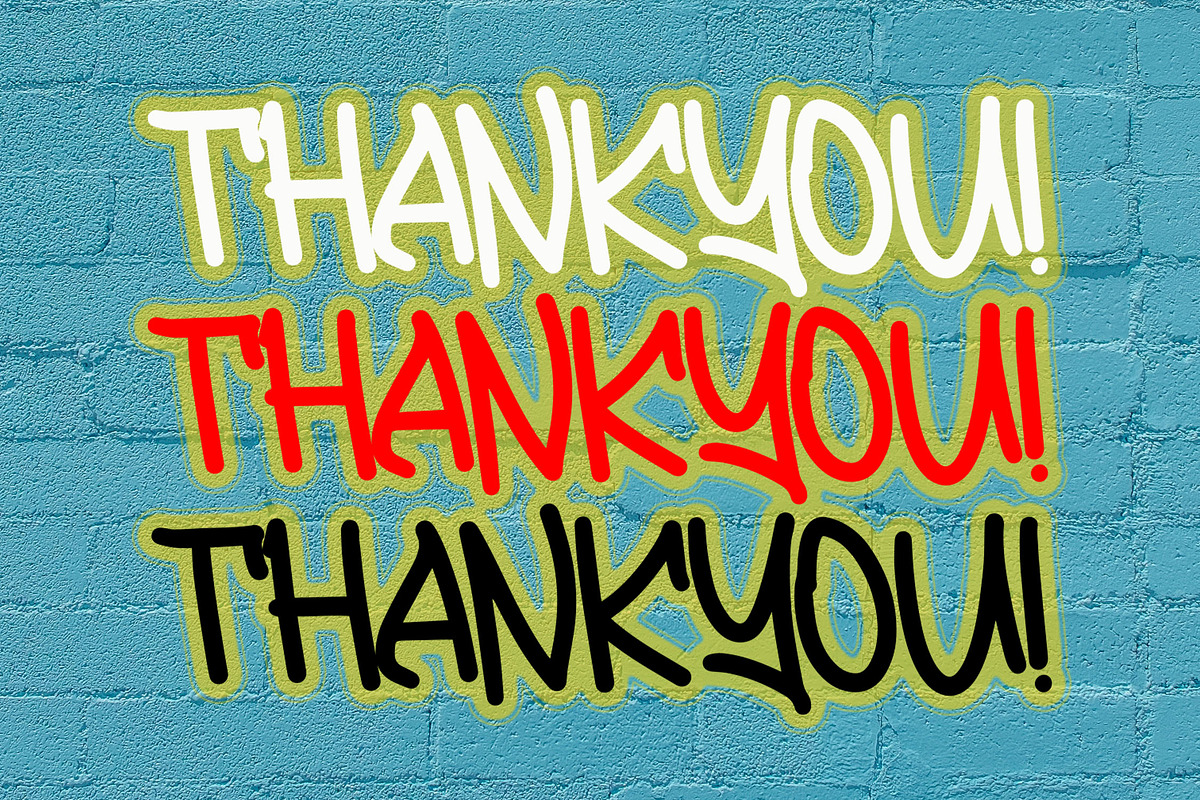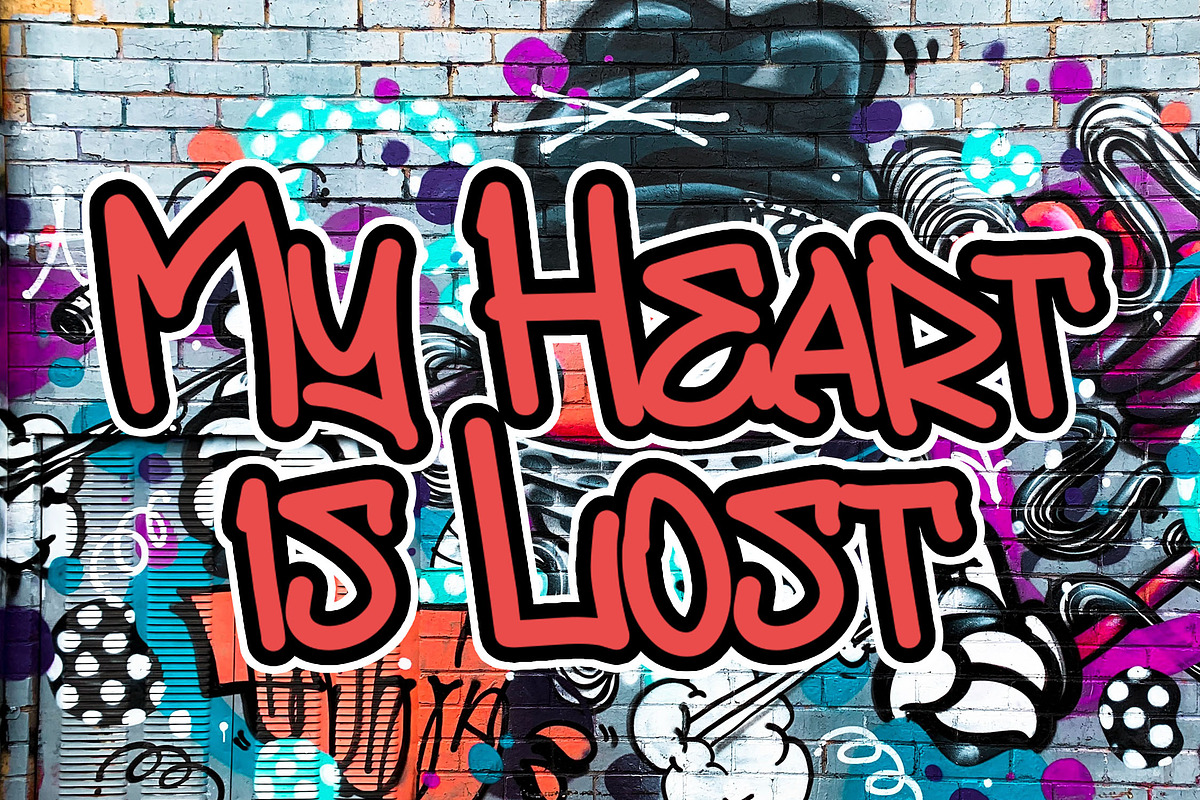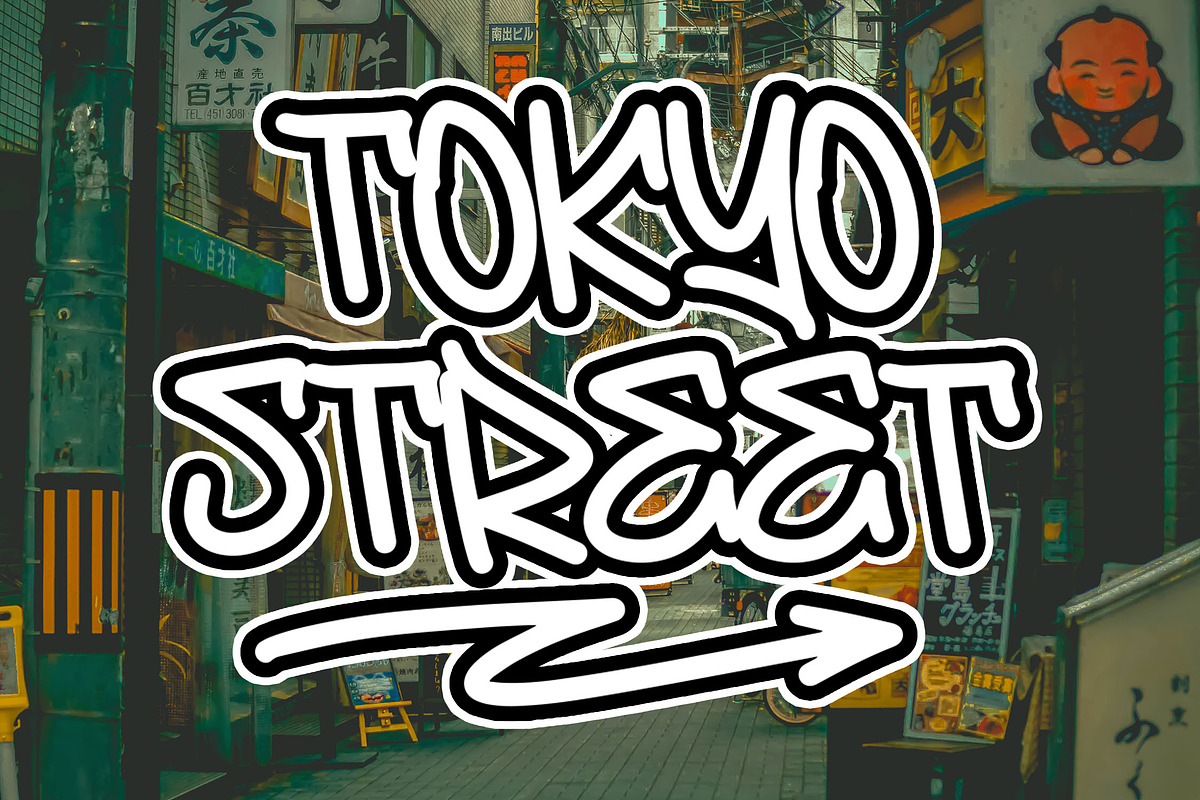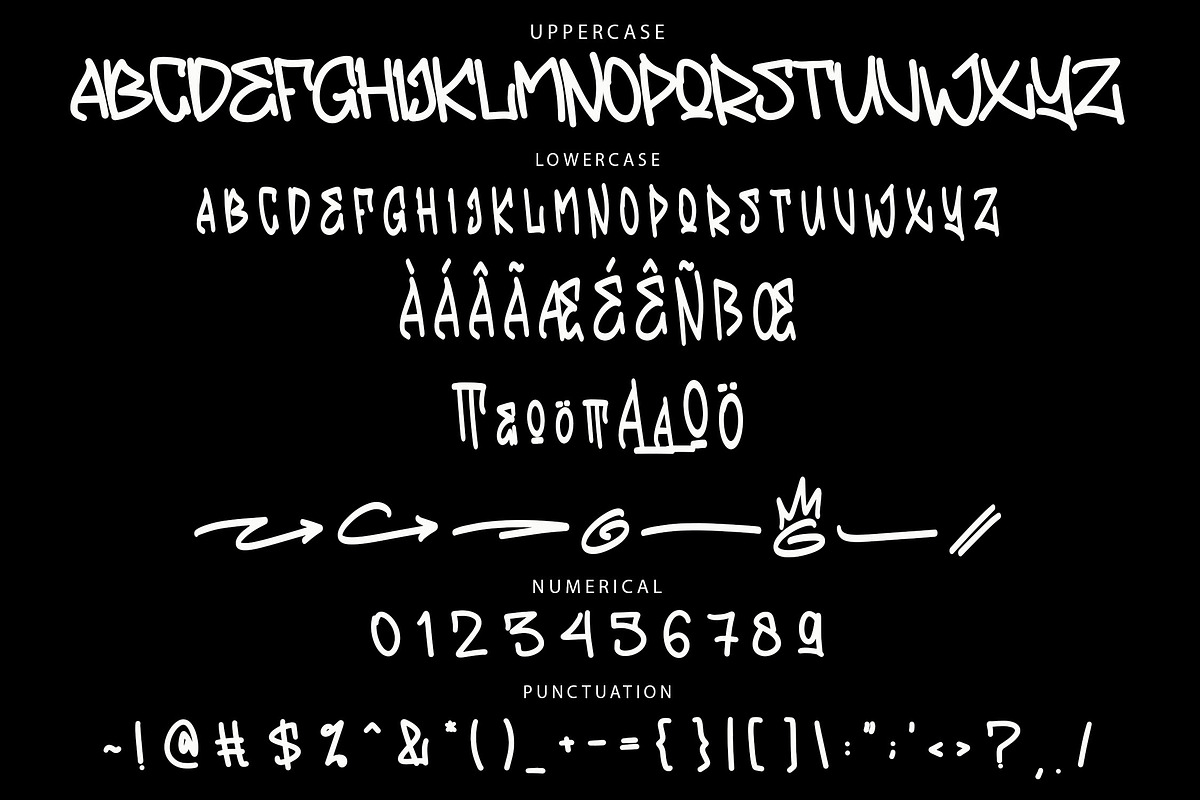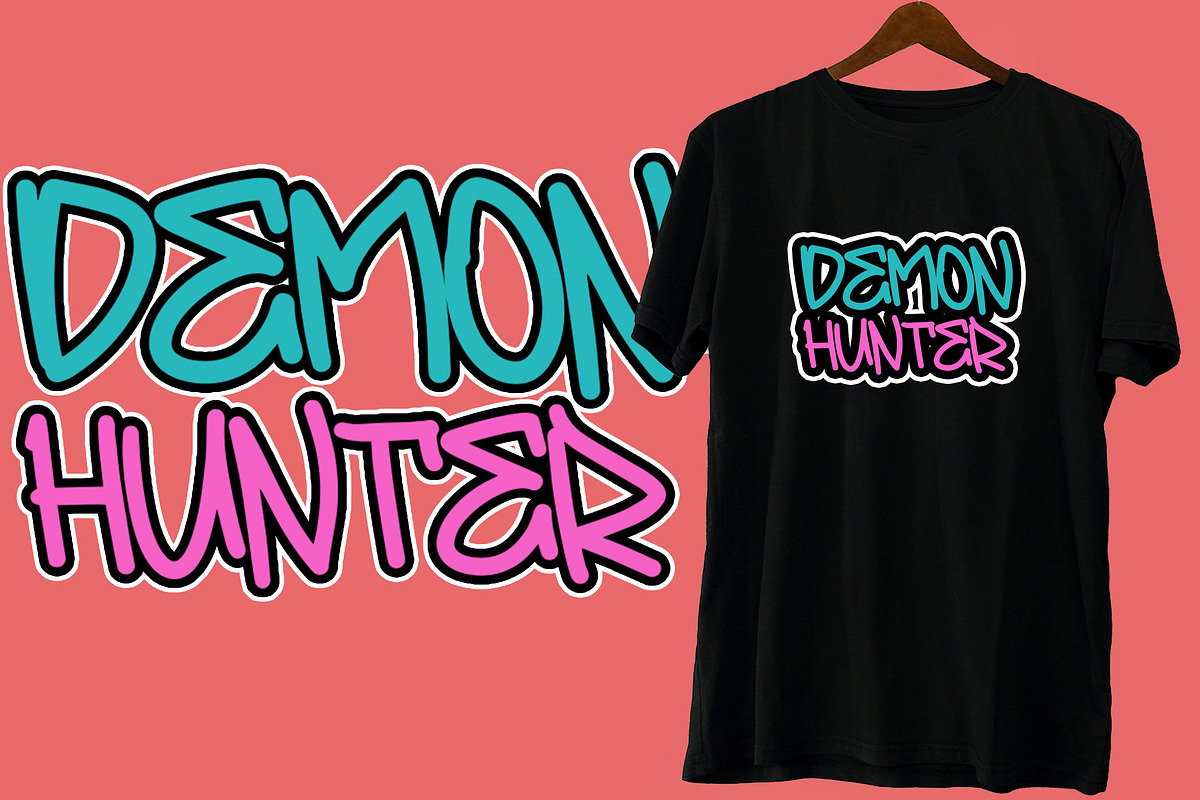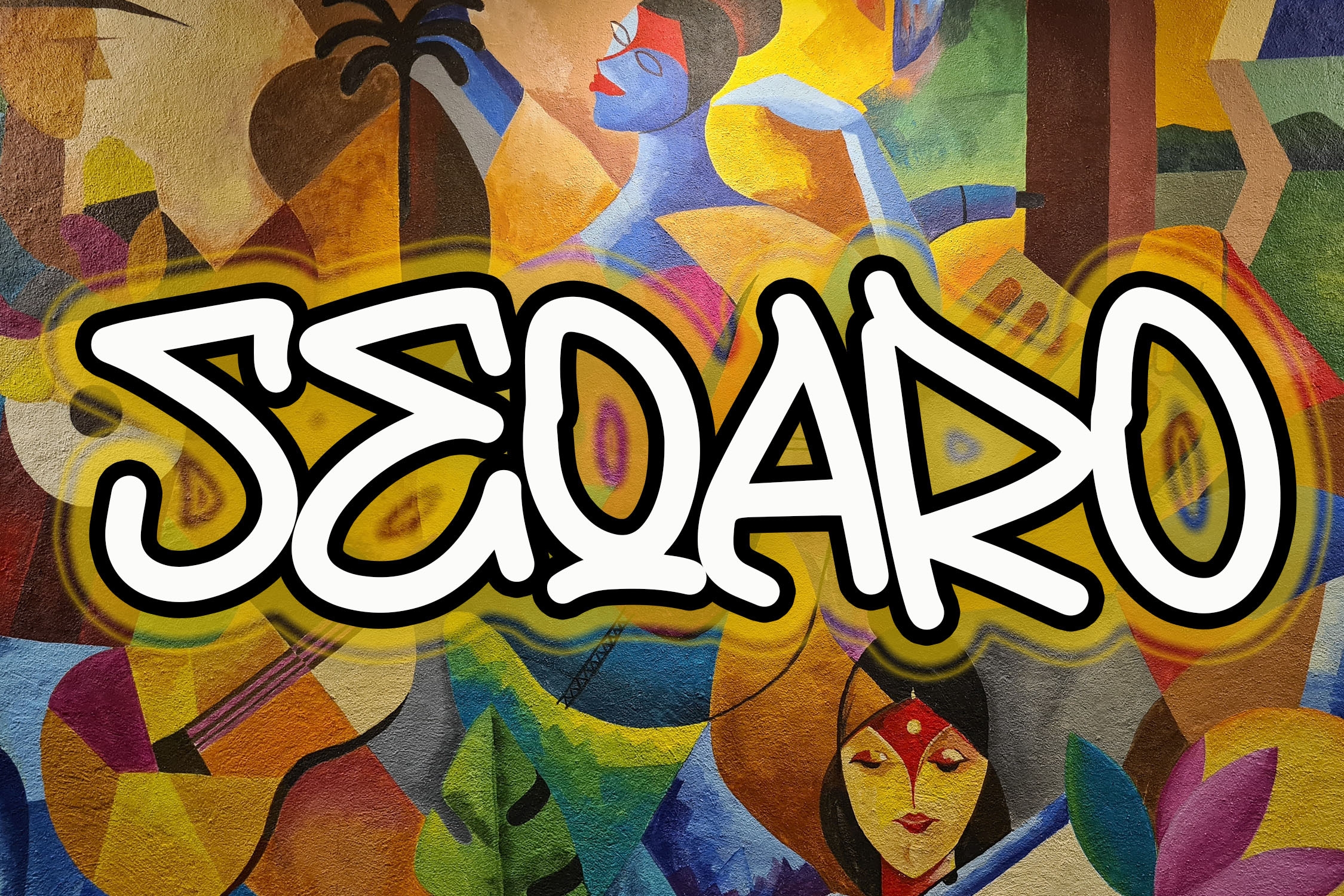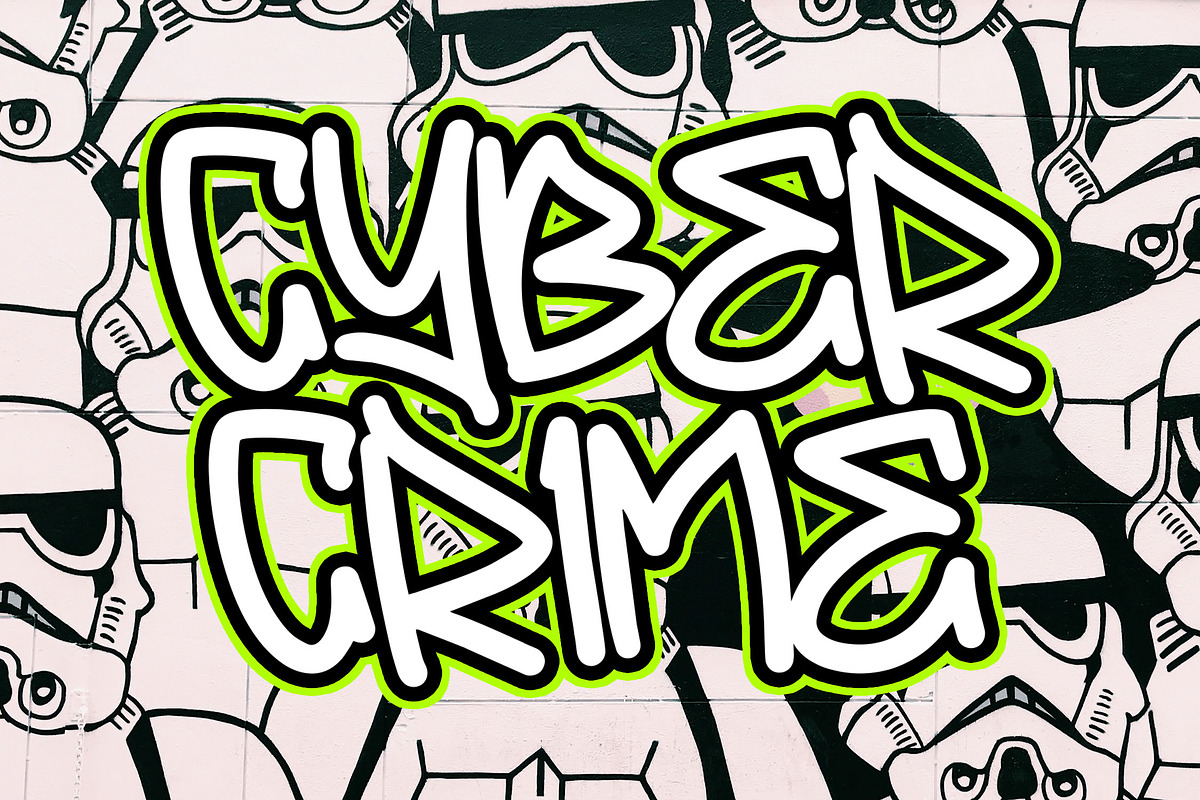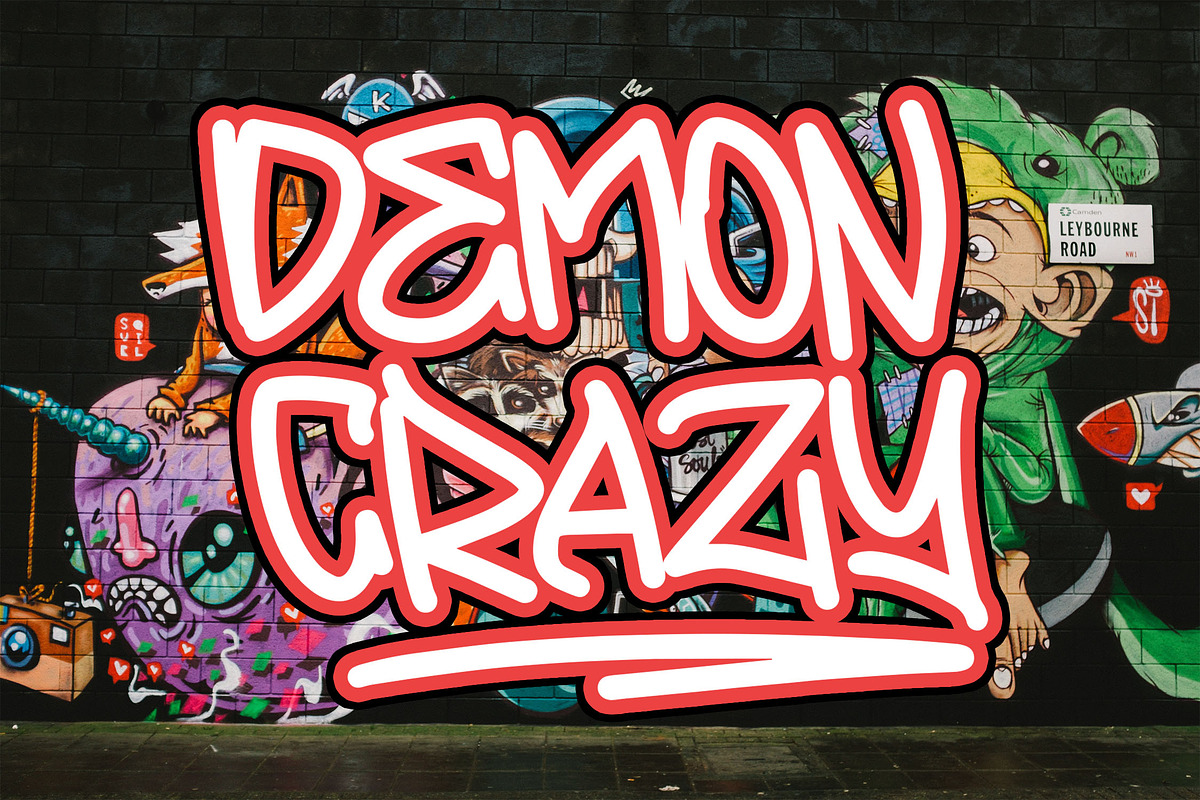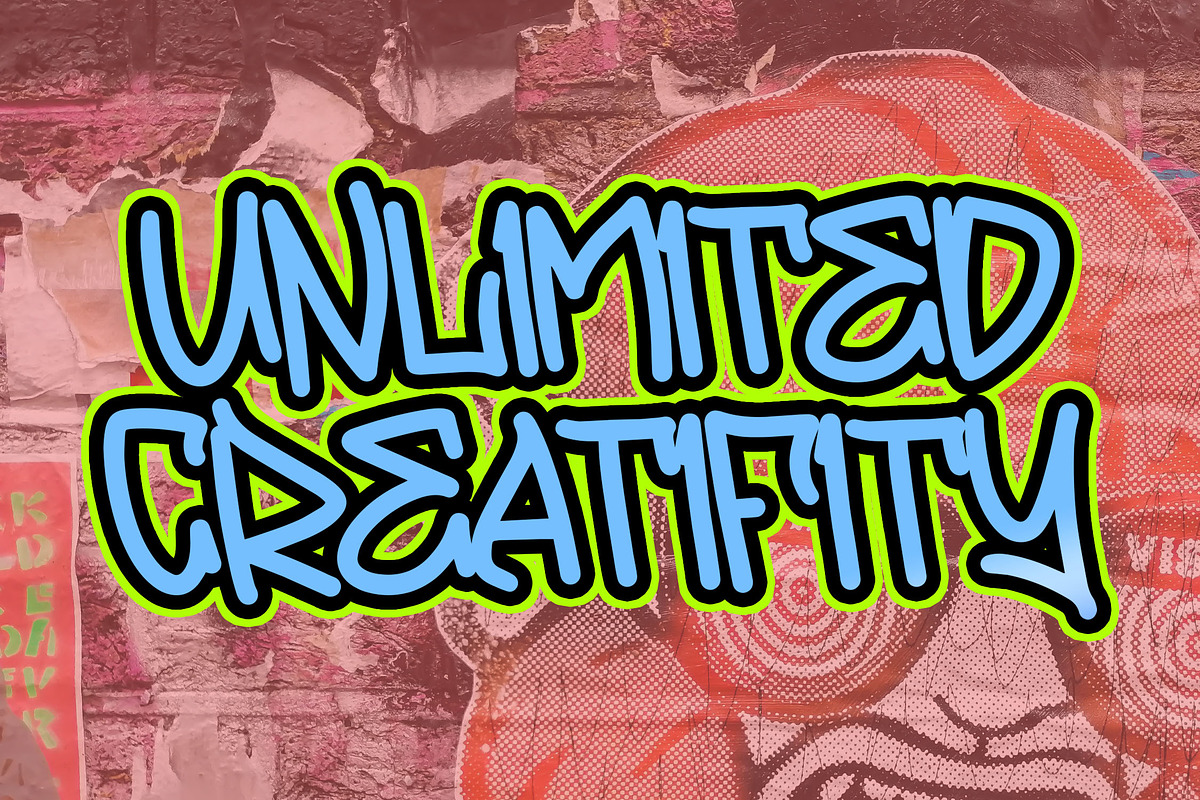
SEQARO Boldline Graffiti Font
SEQARO: Bold Monoline Graffiti Font
Discover SEQARO, a bold graffiti font with a sleek monoline brush style that adds a unique edge to any design. Crafted with distinctive character shapes, SEQARO is ideal for projects needing an urban, artistic vibe, making it perfect for branding, posters, streetwear, and more. This font brings dynamic visual appeal and creativity to your work.
- Ligatures & Stylistic Alternates: Enhance your designs with custom options.
- Swashes & Multilingual Support: Adds expressive flair and global reach.